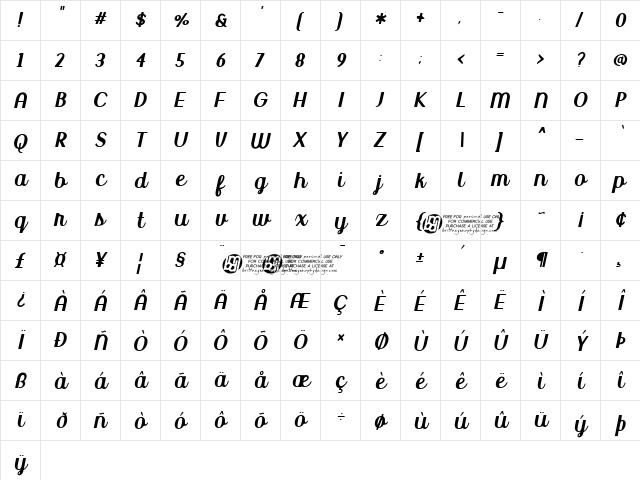
Uptown Market Regular
| Foundry | Brittney Murphy |
| Designer | Brittney Murphy Design |
Design Context for Uptown Market Typeface
Uptown Market is a composed and adaptable typeface that performs quietly and consistently across a wide range of design contexts.